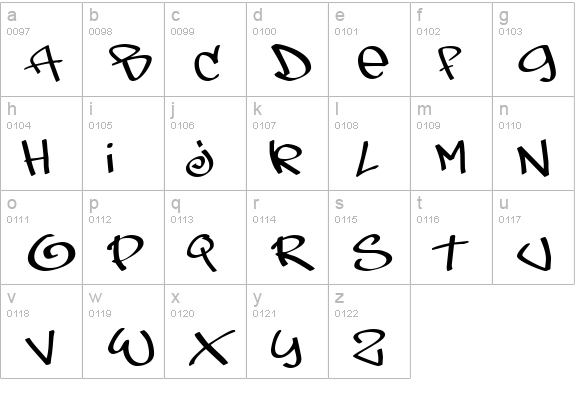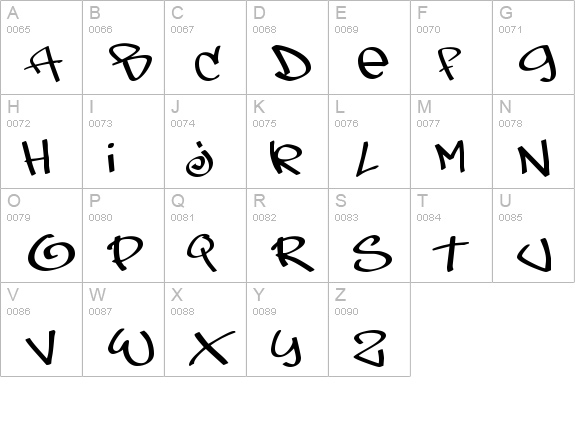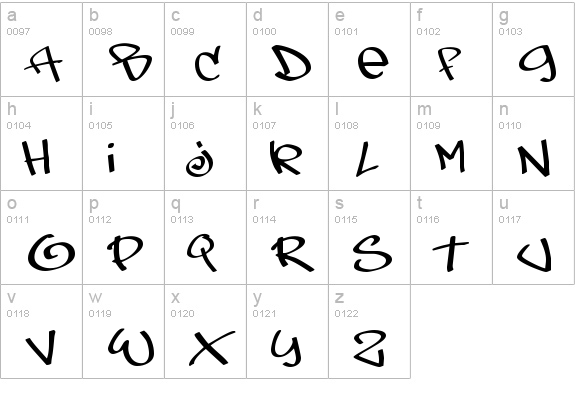
TagsXtreme Font Details
TagsXtreme font is a visually striking and dynamic typeface that is sure to make a bold statement in any design project. This font exudes a sense of strength and power, with its sharp edges and angular shapes. The letters are meticulously crafted, with each stroke creating a sense of movement and energy. What sets TagsXtreme font apart is not just its eye-catching design, but also the fact that it is completely free to use. This font is perfect for designers who want to add a touch of edginess and modernity to their work without breaking the bank. Whether you're designing a logo, creating a poster, or working on a website, TagsXtreme font is sure to leave a lasting impression. Downloading TagsXtreme font is easy and hassle-free. Simply head over to FontsMarket.com, where you can freely download and start using this font in your projects. With its wide range of characters and glyphs, TagsXtreme font gives you the flexibility to create unique and memorable designs. So why settle for ordinary when you can unleash the power of TagsXtreme font? Don't miss out on this incredible opportunity to elevate your designs and make a statement. Download TagsXtreme font today at FontsMarket.com and let your creativity run wild.